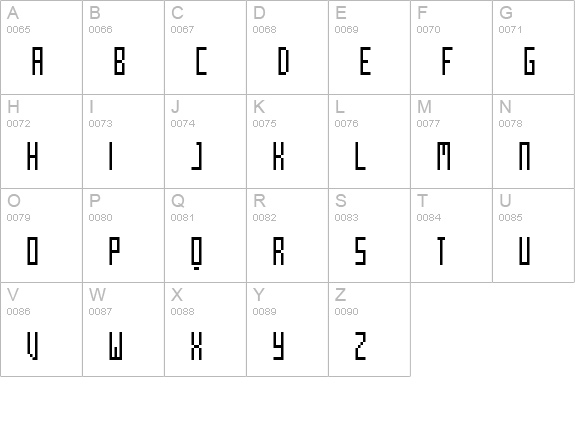
Mecha Condensed is a distinctive, condensed-width variant in the Mecha typeface family \xE2\x80\x94 well suited to design and typography projects.
Mecha Condensed is a sleek and modern typeface that exudes power and innovation. With its condensed letterforms and sharp angles, this font is perfect for adding a touch of futuristic elegance to any design project. Designed with attention to detail, Mecha Condensed offers a seamless blend of geometric precision and boldness. Its clean lines and tight spacing create a sense of efficiency and sophistication, making it ideal for high-impact headlines, logos, and branding materials. What sets Mecha Condensed apart is not just its impeccable design, but also its availability. This font is freely available to download at FontsMarket.com, making it accessible to designers and creatives all around the world. Whether you're a professional designer or a hobbyist, you can now access this versatile and eye-catching typeface without any cost. With a wide range of weights and styles, Mecha Condensed allows you to experiment and explore various design possibilities. From light and elegant to bold and commanding, this font can be tailored to suit your specific needs and preferences. Whether you're working on a futuristic sci-fi movie poster, a cutting-edge technology website, or a sleek fashion magazine, Mecha Condensed is the perfect companion to elevate your design to the next level. Its versatility, combined with its free availability, makes it a must-have font for any creative project. Download Mecha Condensed for free at FontsMarket.com and unleash your creativity with this powerful and visually striking typeface.